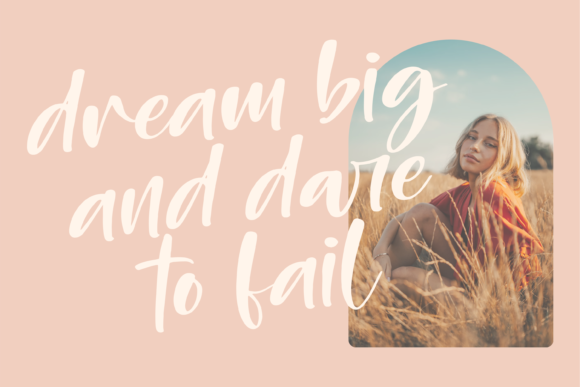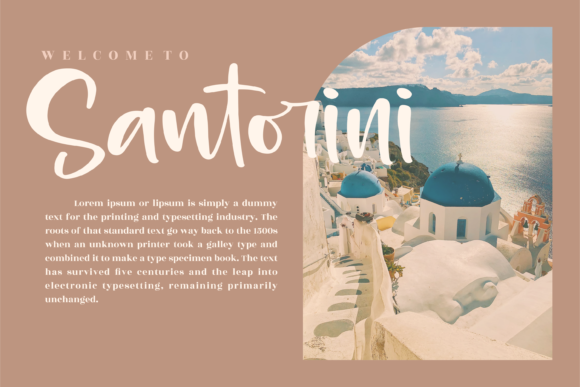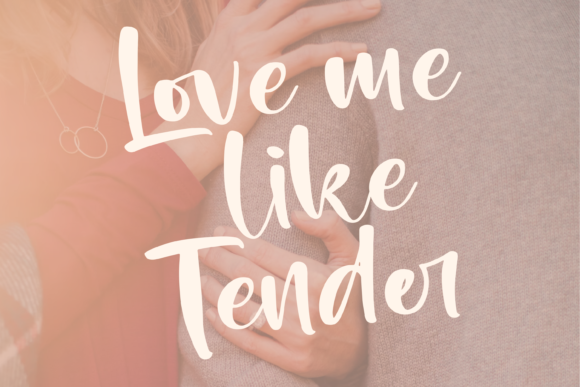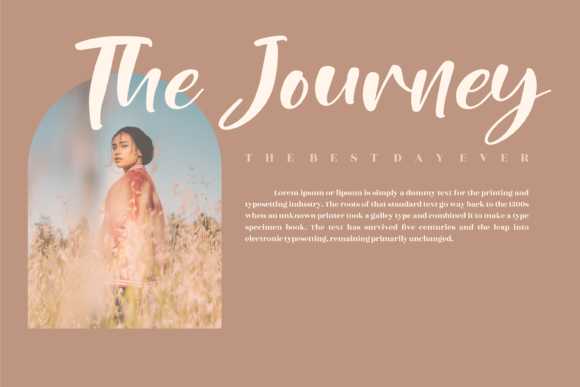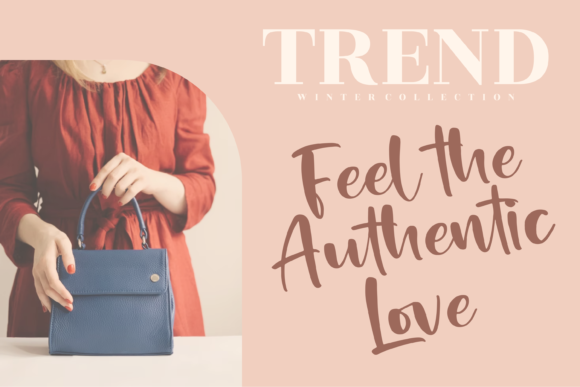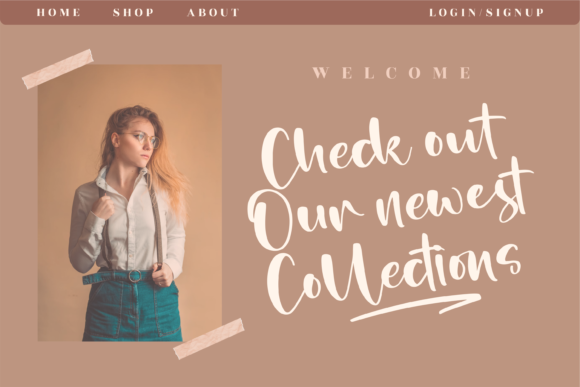
Introduction to Rolington Font
Have you ever been stuck in front of a blank canvas, unable to bring your creative vision to life? It’s a moment we’ve all experienced at some point in our design journey. But what if I told you that there’s a secret ingredient that could elevate your creative project and make it truly stand out? Enter the Rolington Font, a beautiful script font that’s perfect for a wide range of applications.
As a designer, you’re always on the lookout for high-quality design resources that can help you create stunning visuals. The Rolington Font is a valuable addition to your design arsenal, offering a unique and elegant script style that’s sure to impress. With its transparent background and crisp lines, this font is a must-have for any creative project that requires a touch of sophistication.
Whether you’re working on logos, branding projects, or even just a simple quote, the Rolington Font is a free download that’s sure to become a trusted design resource. So why not give it a try and see how it can elevate your next creative project?
Key Features of Rolington Font
- High-quality, elegant script font suitable for creative projects, wedding invitations, and other design needs.
- Unique characteristics: elegant connections, subtle flair, and a touch of sophistication, making it perfect for high-end design projects.
Honest Review: Rolington Font
I recently stumbled upon the Rolington Font, and I must say it’s a great addition to my design arsenal. As a designer, I’m always on the lookout for high-quality fonts that can elevate my creative projects.
The Rolington Font is a free download, which is a definite plus in my book. It’s available in a transparent background, making it easy to incorporate into any design. The font itself is modern, sleek, and versatile, perfect for a wide range of creative projects.
Here are some of the things that work well with the Rolington Font:
- ✨ Modern and sleek design
- ✨ High-quality typography
- ✨ Versatile and suitable for various creative projects
- ⚠️ Limited character set (only uppercase and lowercase letters, no numbers or special characters)
- ⚠️ May not be suitable for projects that require a lot of text
Overall, I’m impressed with the Rolington Font. It’s a great resource for designers who want a high-quality, modern font for their creative projects. While it may have some limitations, it’s definitely worth checking out.
Tips for Getting the Most Out of Rolington Font
For a high-quality design, use the Rolington Font with a transparent background to create a clean and modern look.
The Rolington Font is ideal for creative projects, such as branding, logos, and infographics, and is available for free download as a design resource.